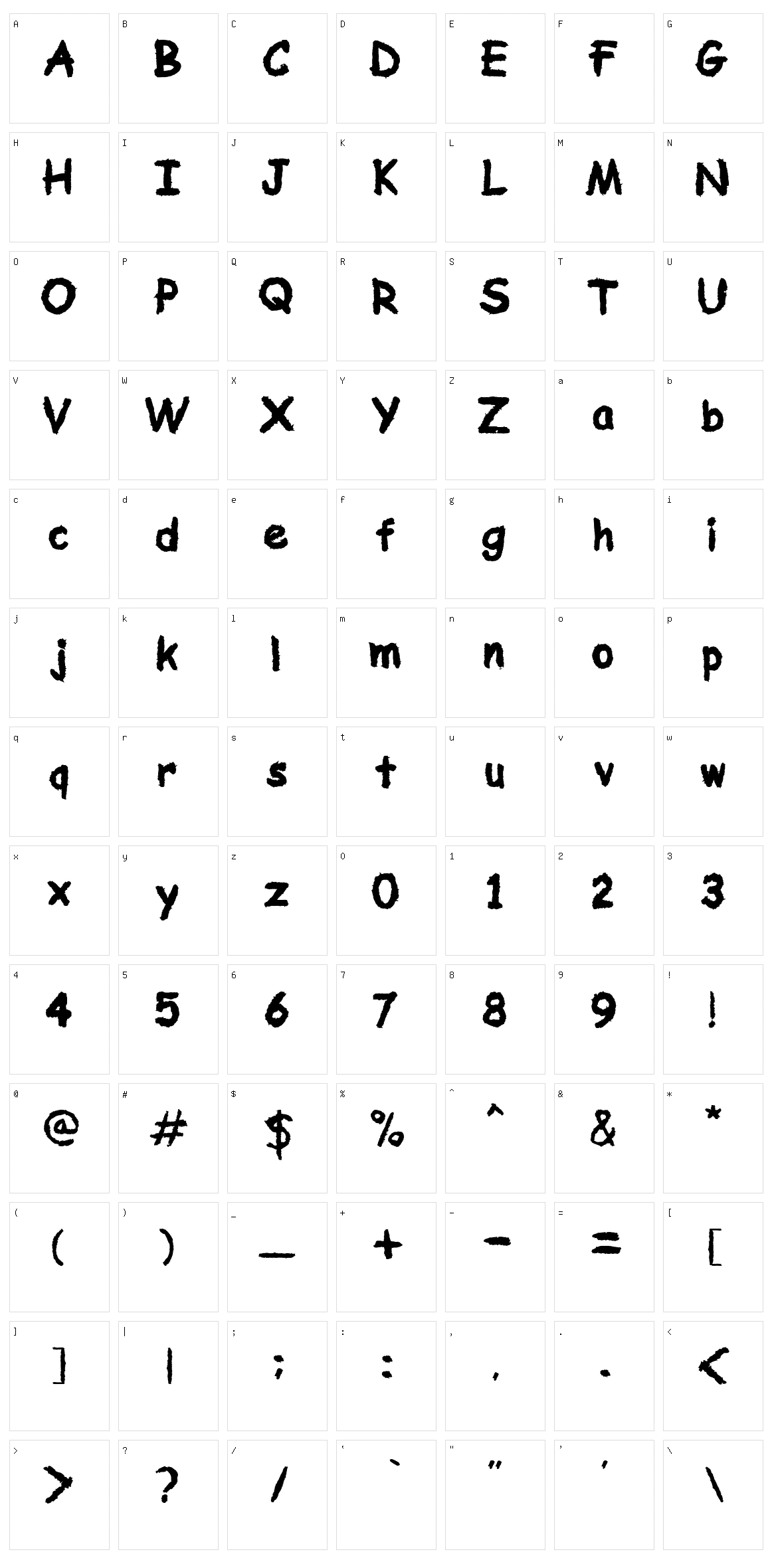
This package contains single font of TTF (TRUE TYPE FONT). 125 total in characters (Upppercase, lowercase, number, and some of alternate fonts and symbols).
Hand drawn made.
It was designed to multi-purpose.